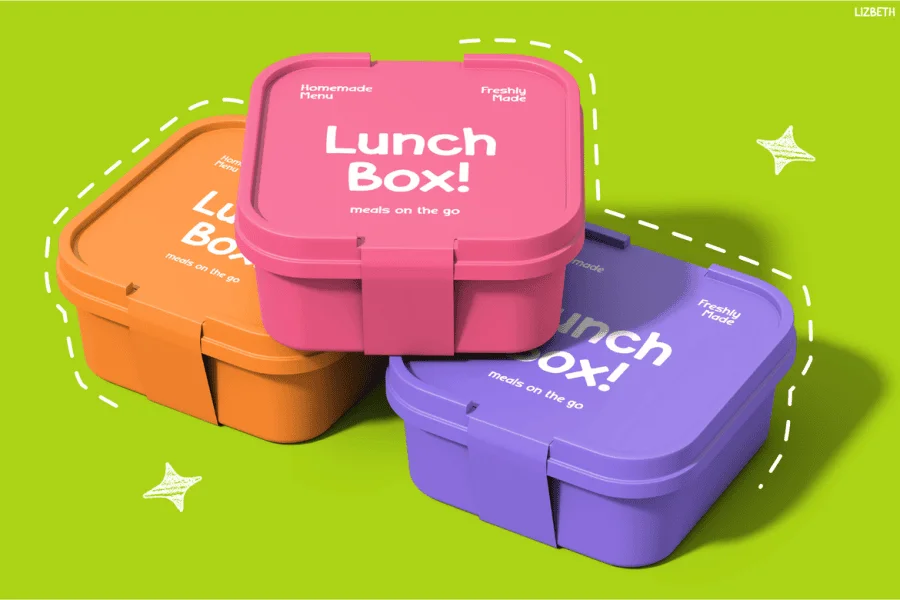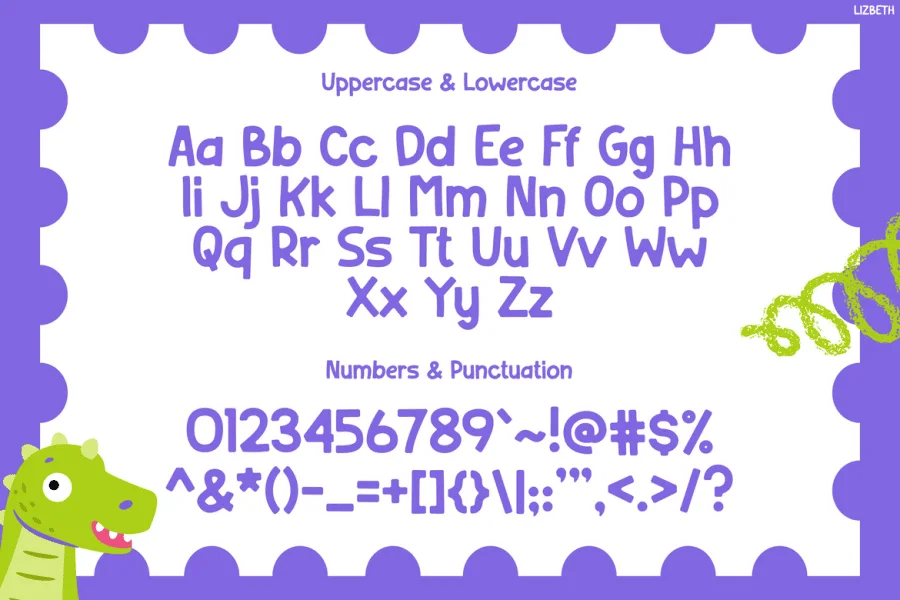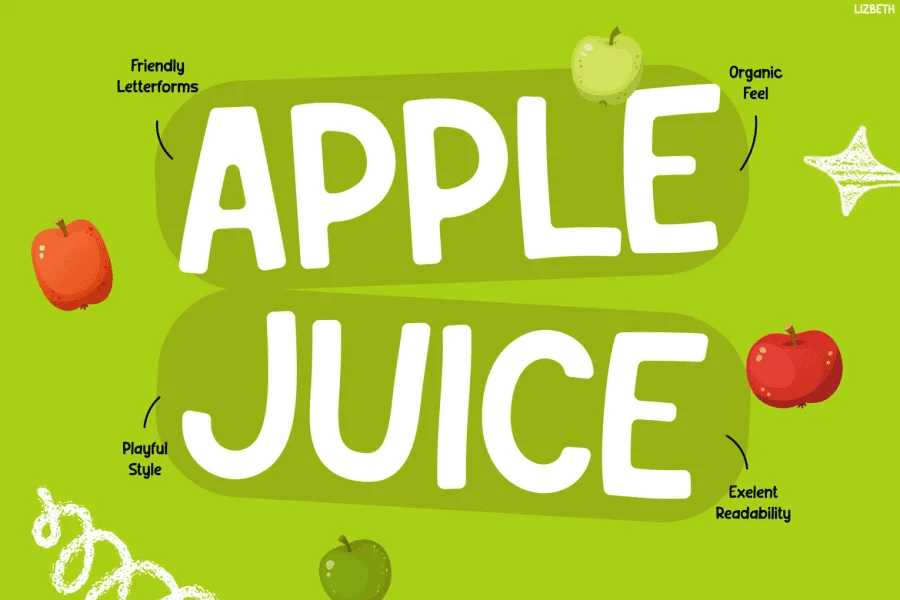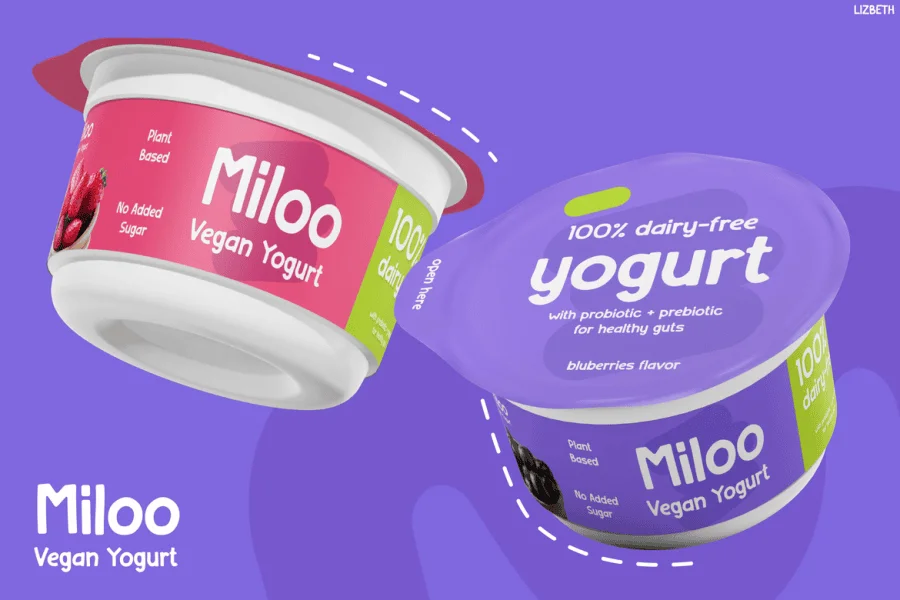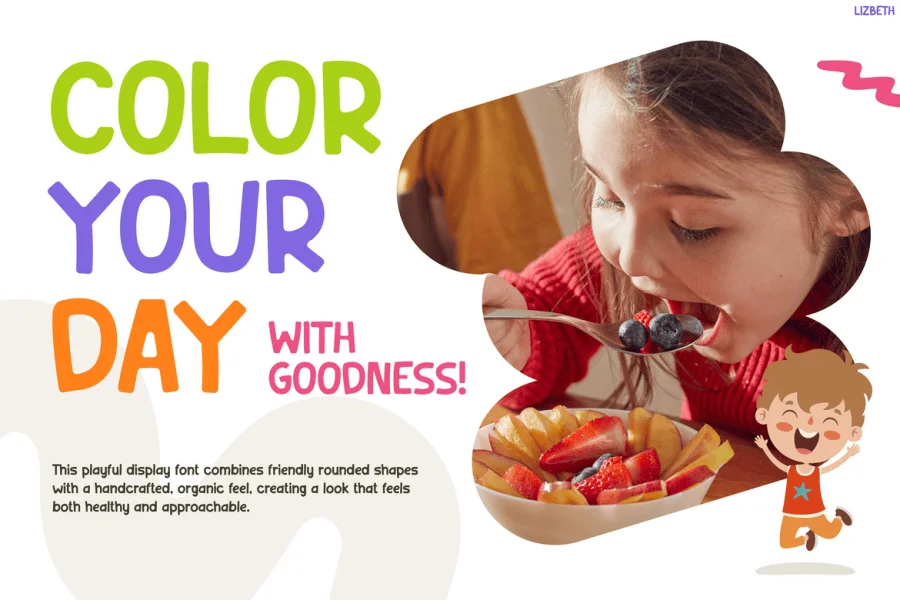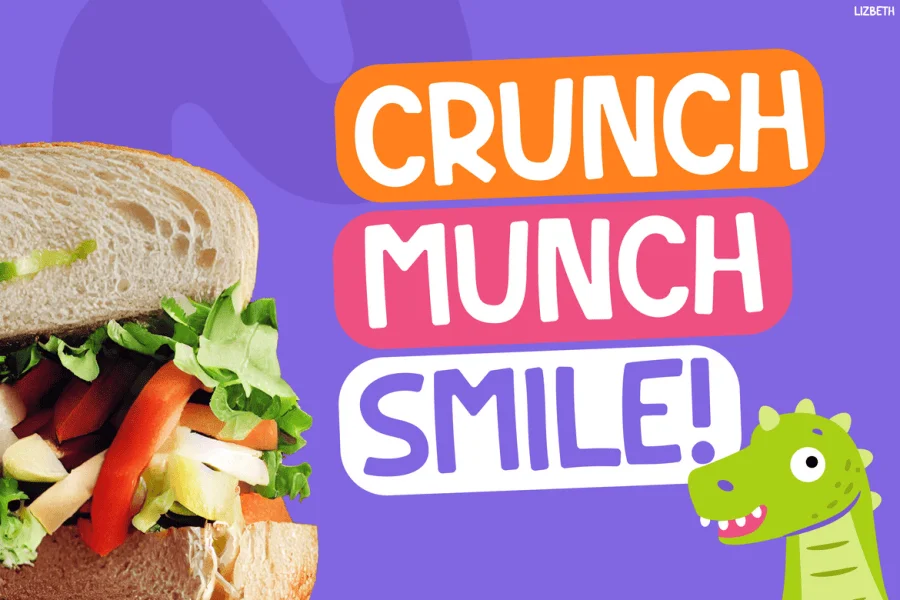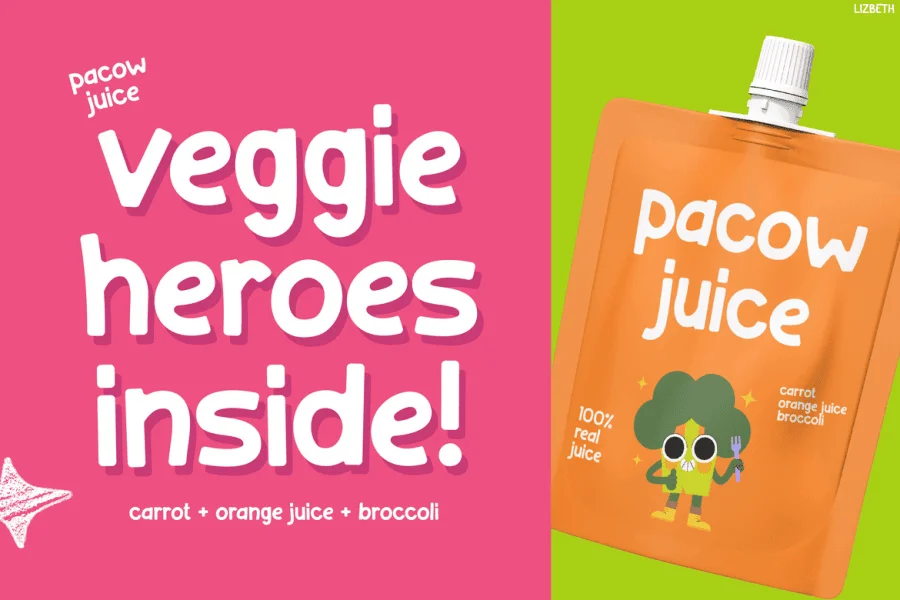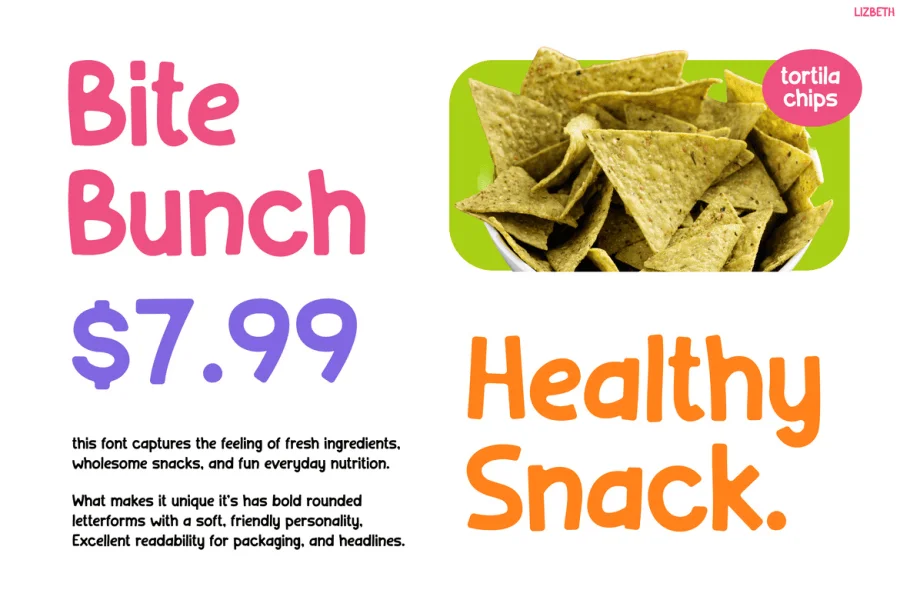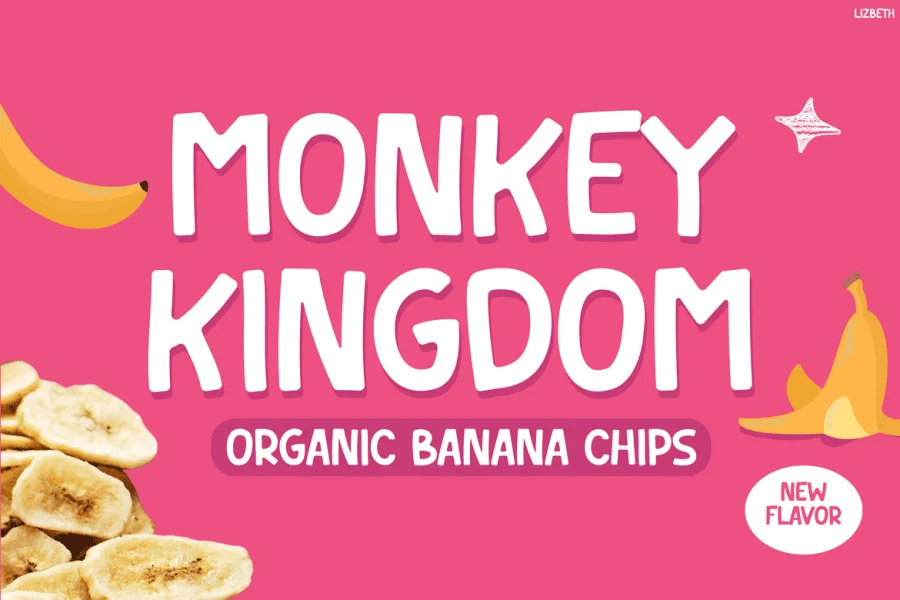
Lizbeth is a friendly, hand-drawn sans-serif display typeface characterized by its soft, rounded terminals and organic, low-contrast stroke weight. The letterforms feature a playful, slightly irregular rhythm with soft curves and blunt, planar stroke endings that give it an approachable, handcrafted texture. Its upright posture and generous x-height ensure high legibility while maintaining a casual, lighthearted demeanor.
This typeface is exceptionally suited for child-centric branding, organic food packaging, and vibrant promotional designs. Its soft, tactile appearance makes it an excellent choice for yogurt tubs, juice pouches, children's book covers, and any design project aiming to project warmth, health, and a cheerful, welcoming personality.